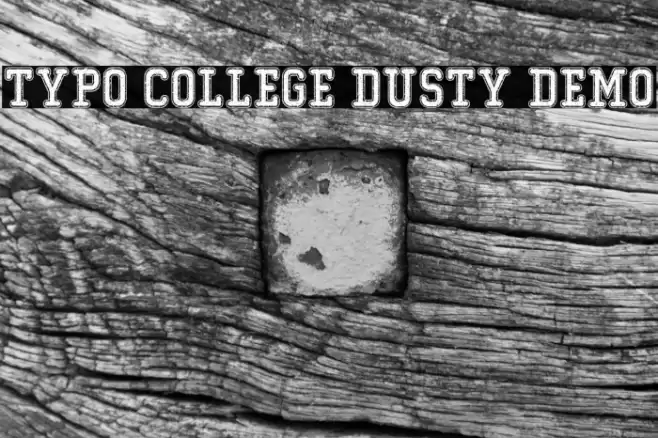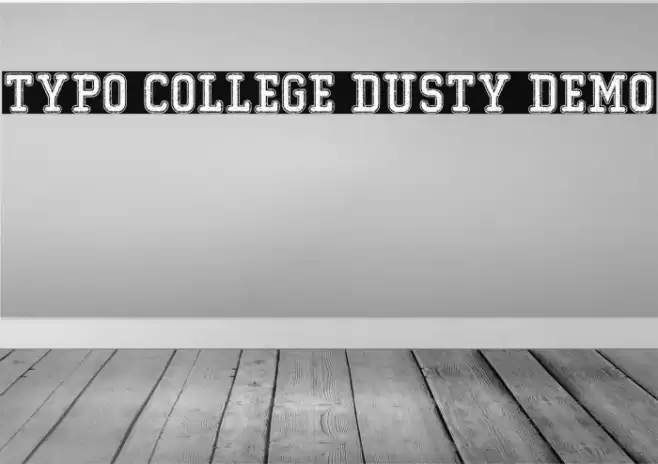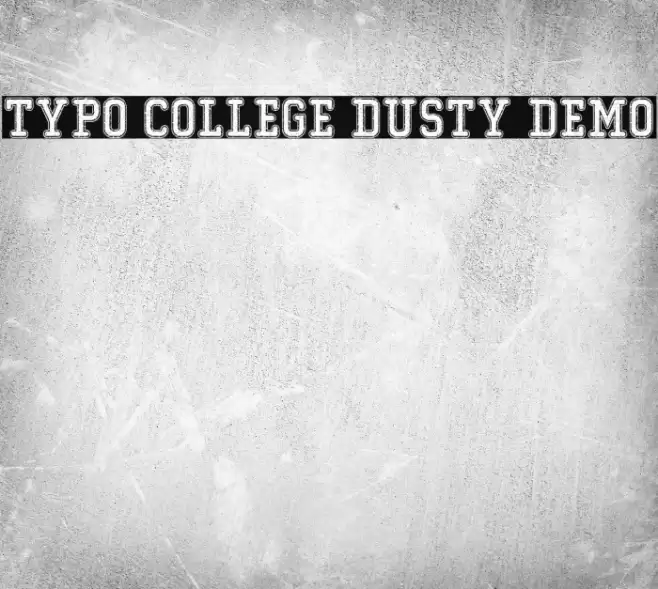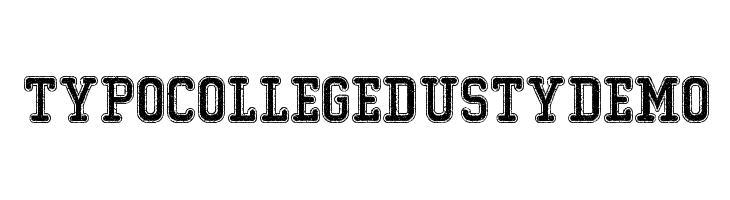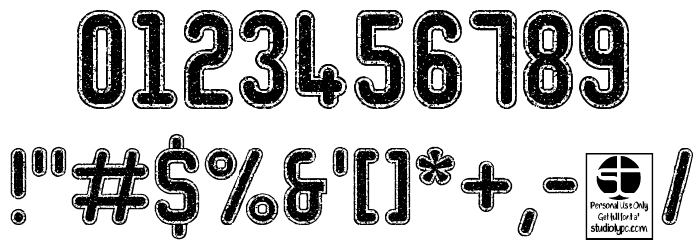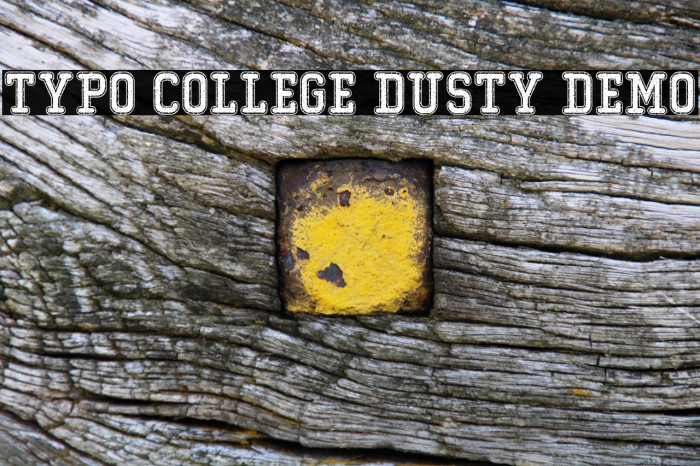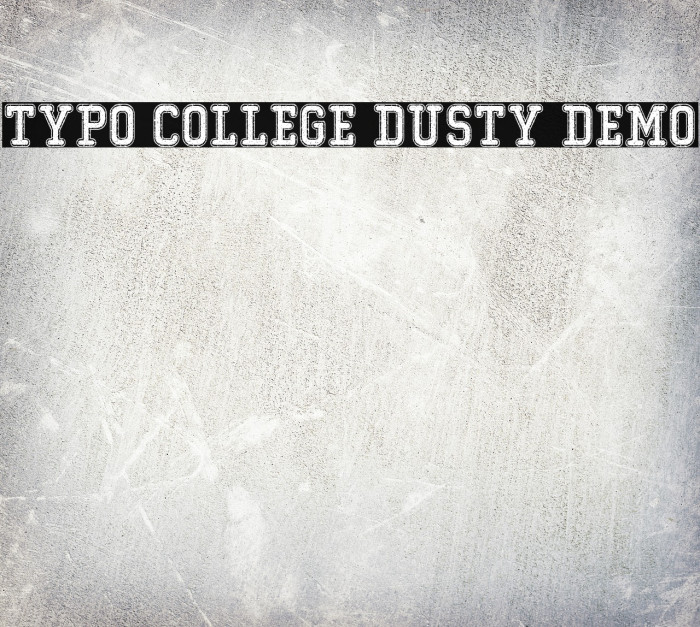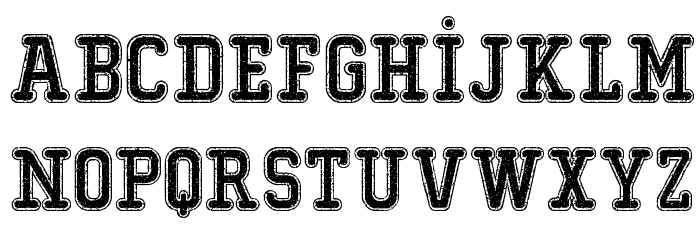
Typo College Dusty Demo Font
Typo College Dusty Demo Description
This font features a bold, textured design with a distressed, vintage appearance. Each character is outlined with a thick border, giving it a strong presence, while the inner portions display a worn, dusty effect that adds character and depth. The uppercase letters are uniform in height, maintaining a consistent baseline, while the numerals and special characters share the same rugged style. The font's overall aesthetic is reminiscent of collegiate or sports-themed designs, making it ideal for projects that require a bold, impactful look with a touch of nostalgia.
A bold, textured font with a distressed, vintage look from Uncategorized fonts.
- Proposed Projects: Ideal for sports-themed designs, vintage posters, apparel branding, and event flyers.
- Overall Style: Vintage